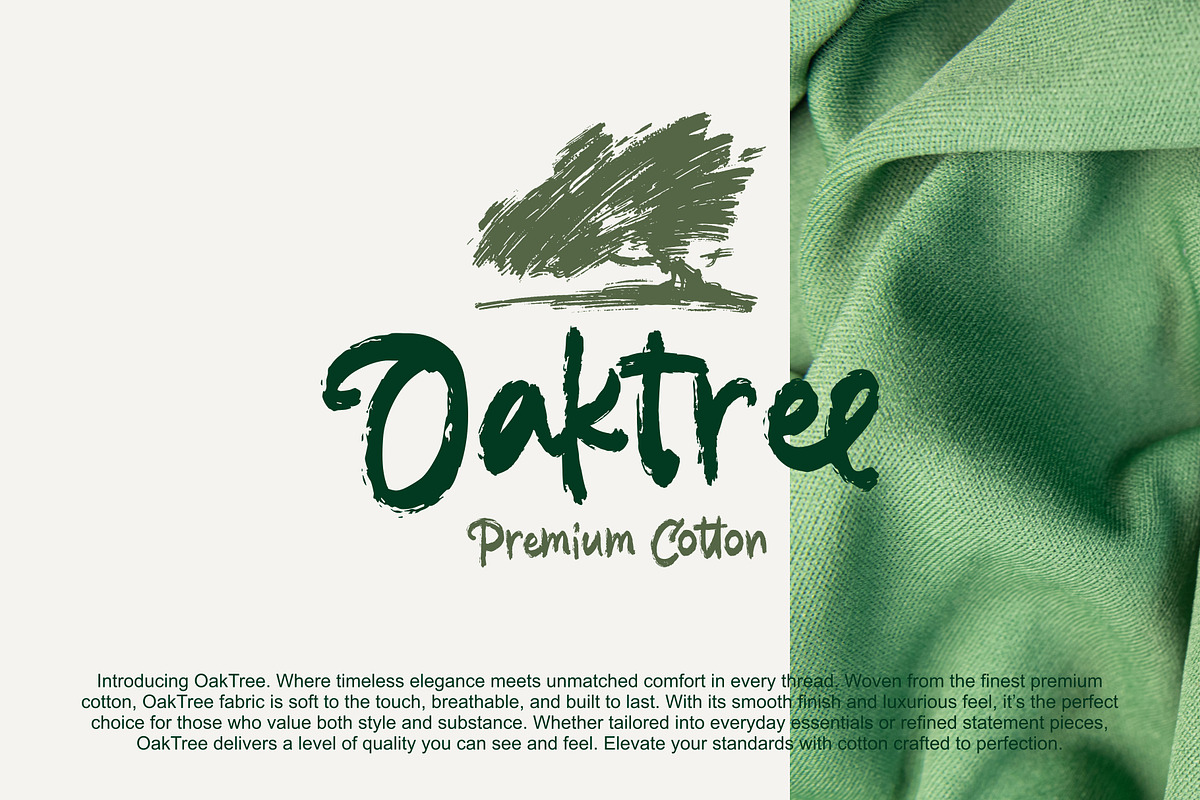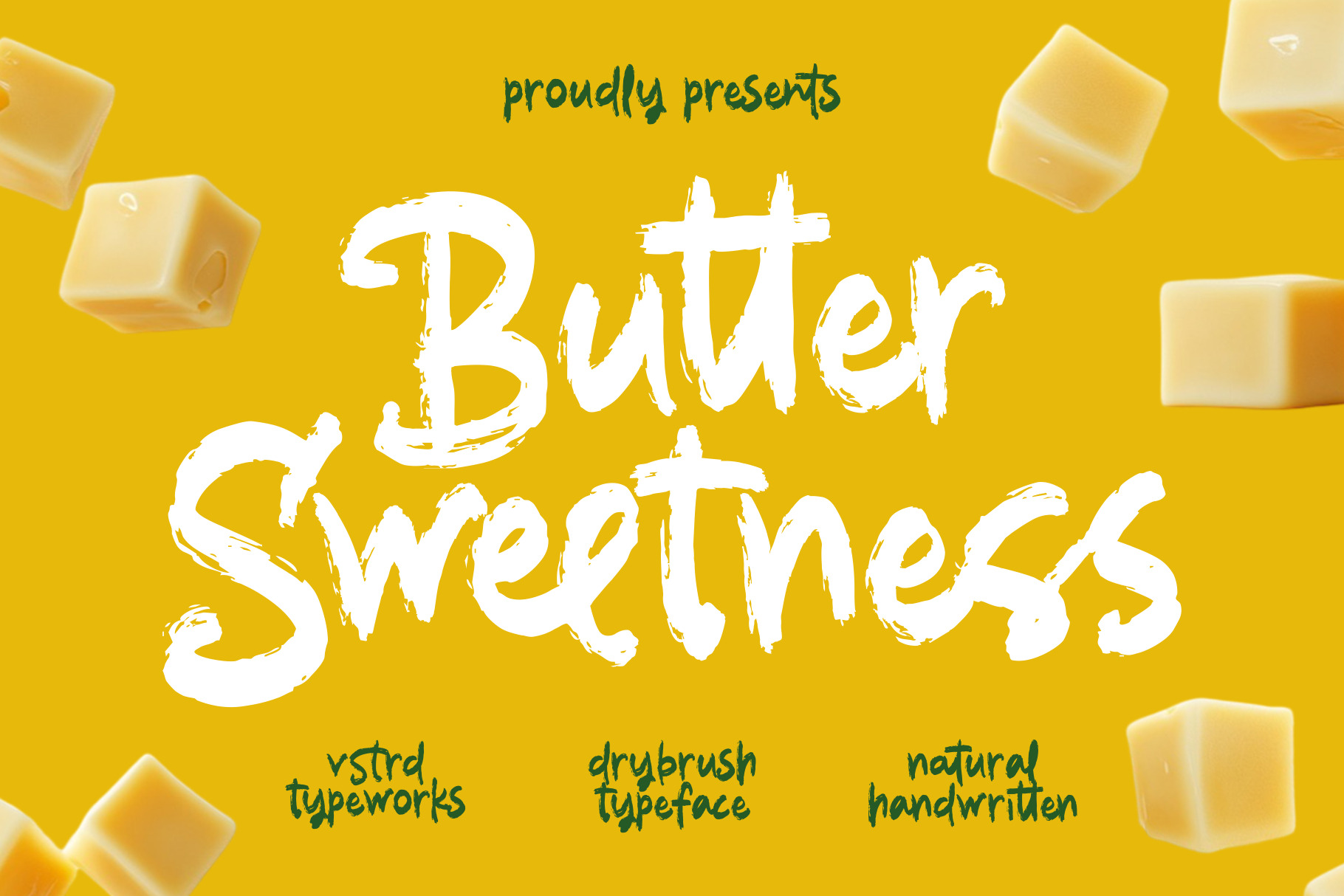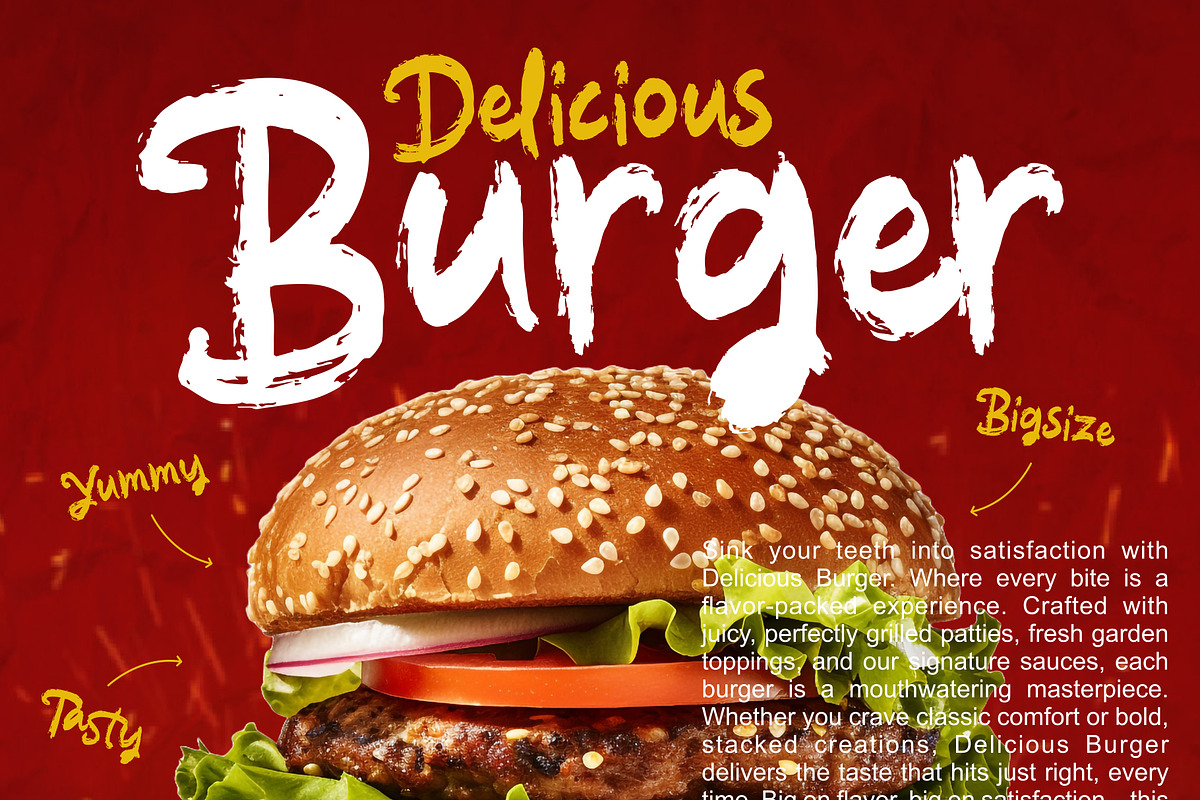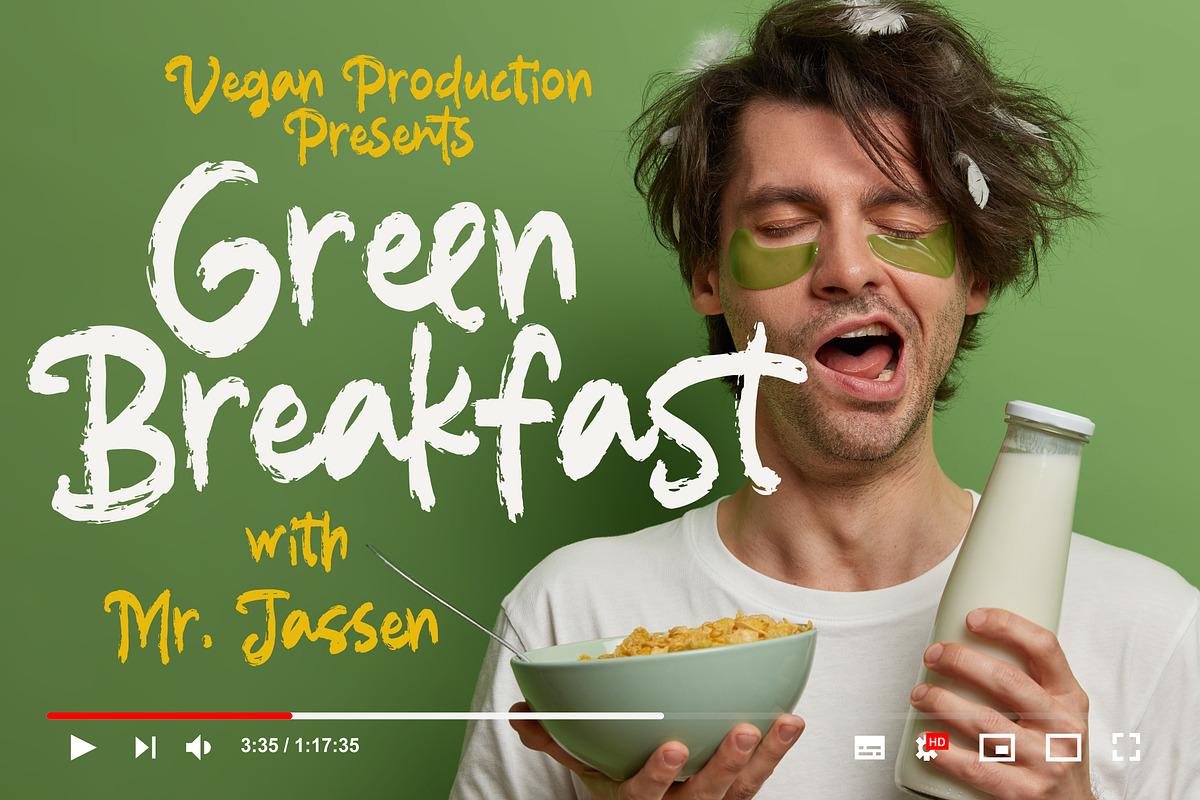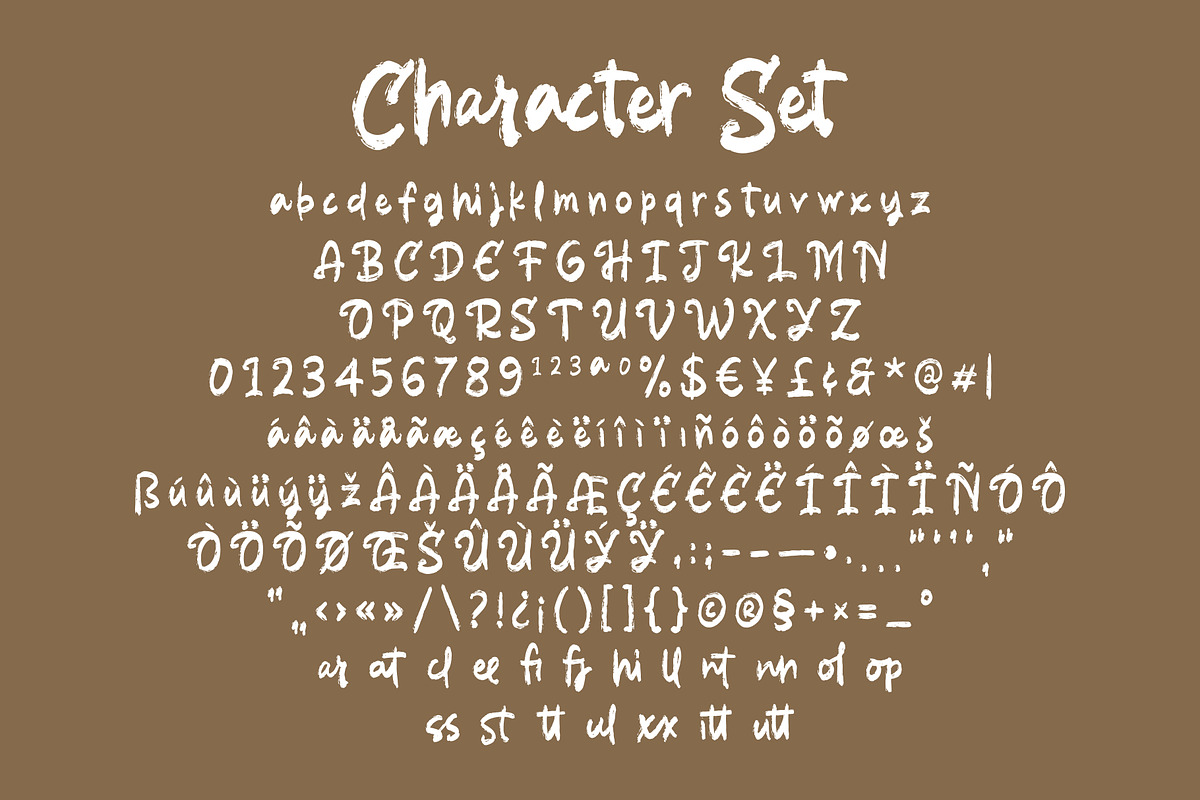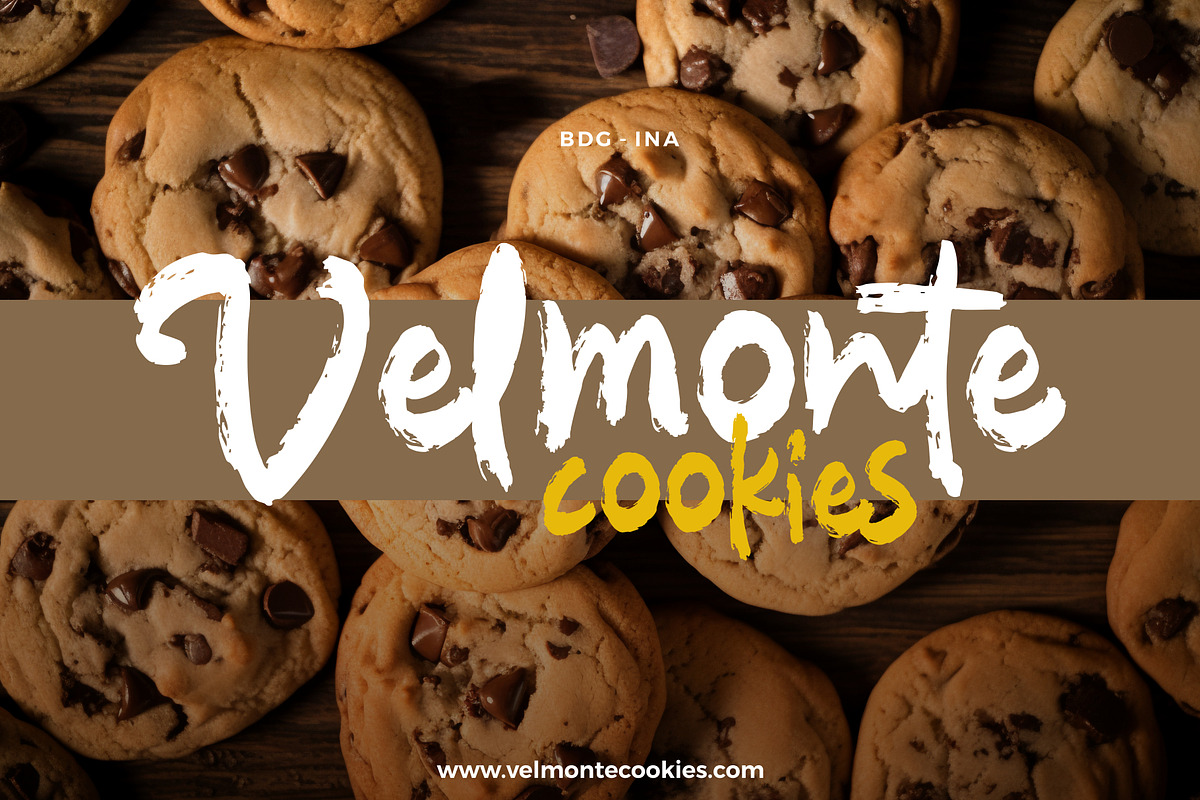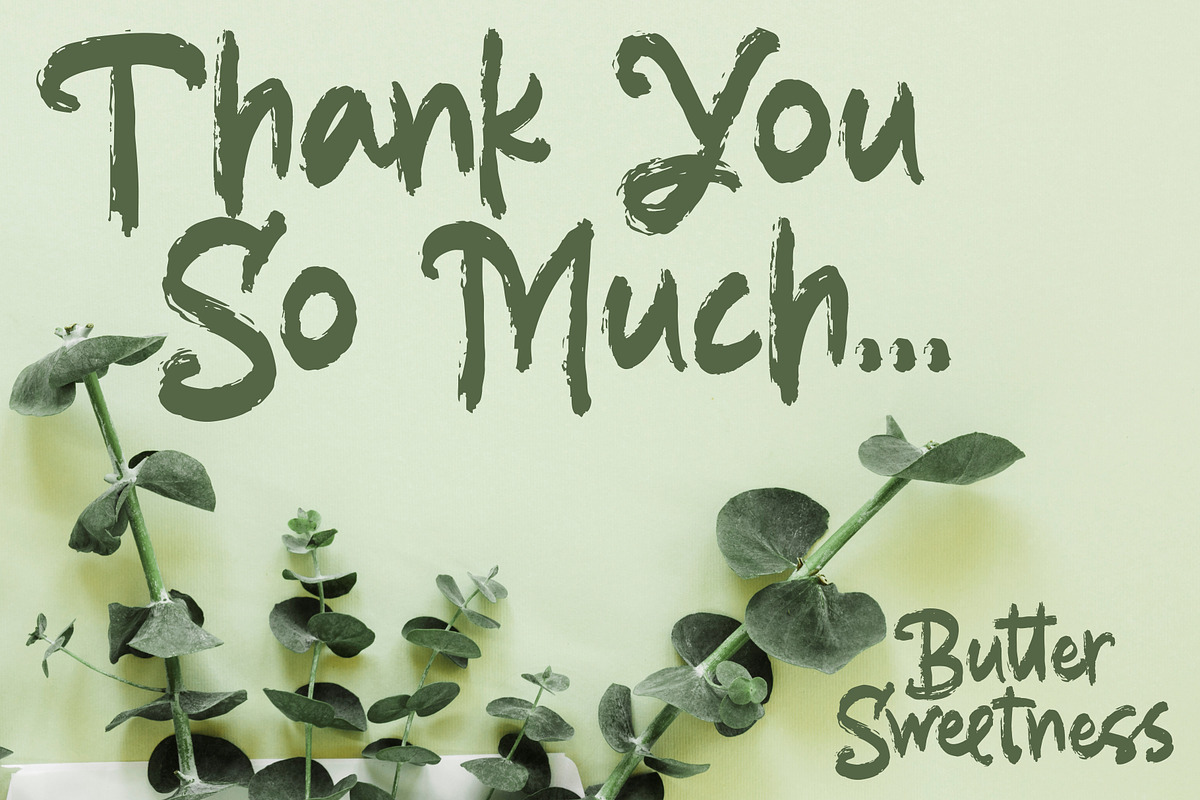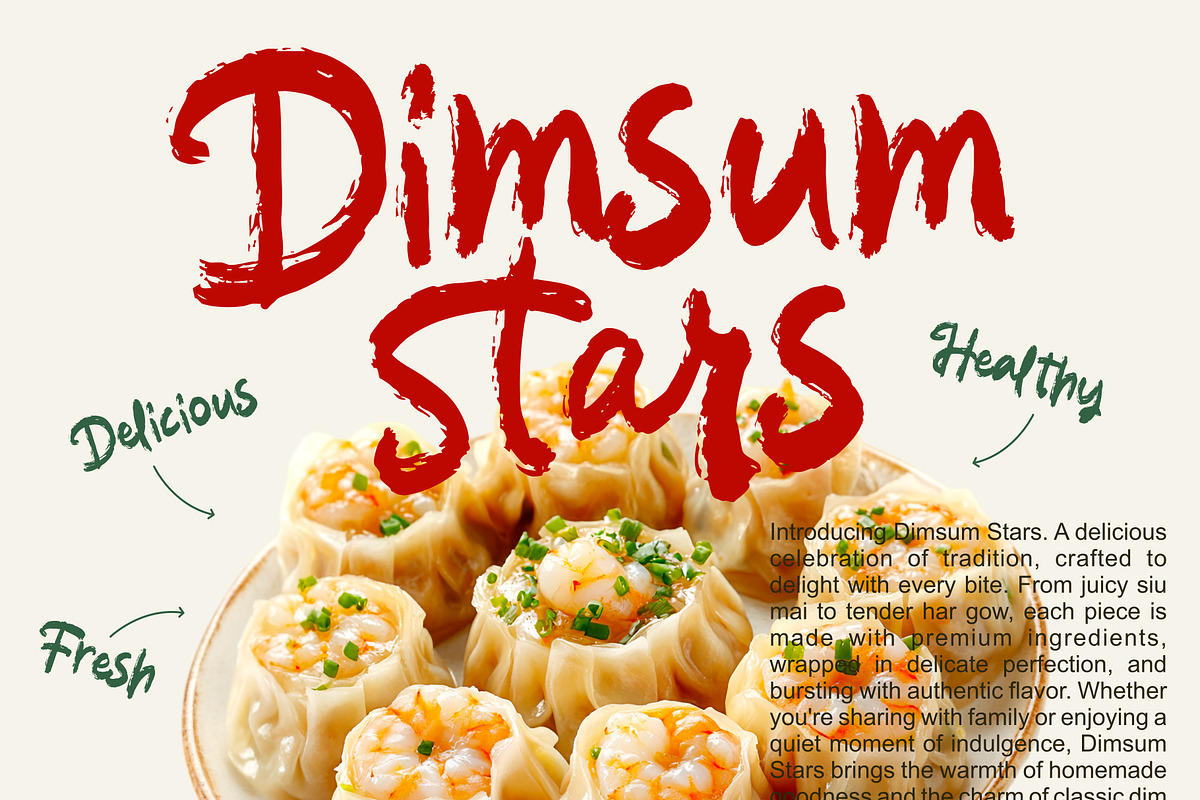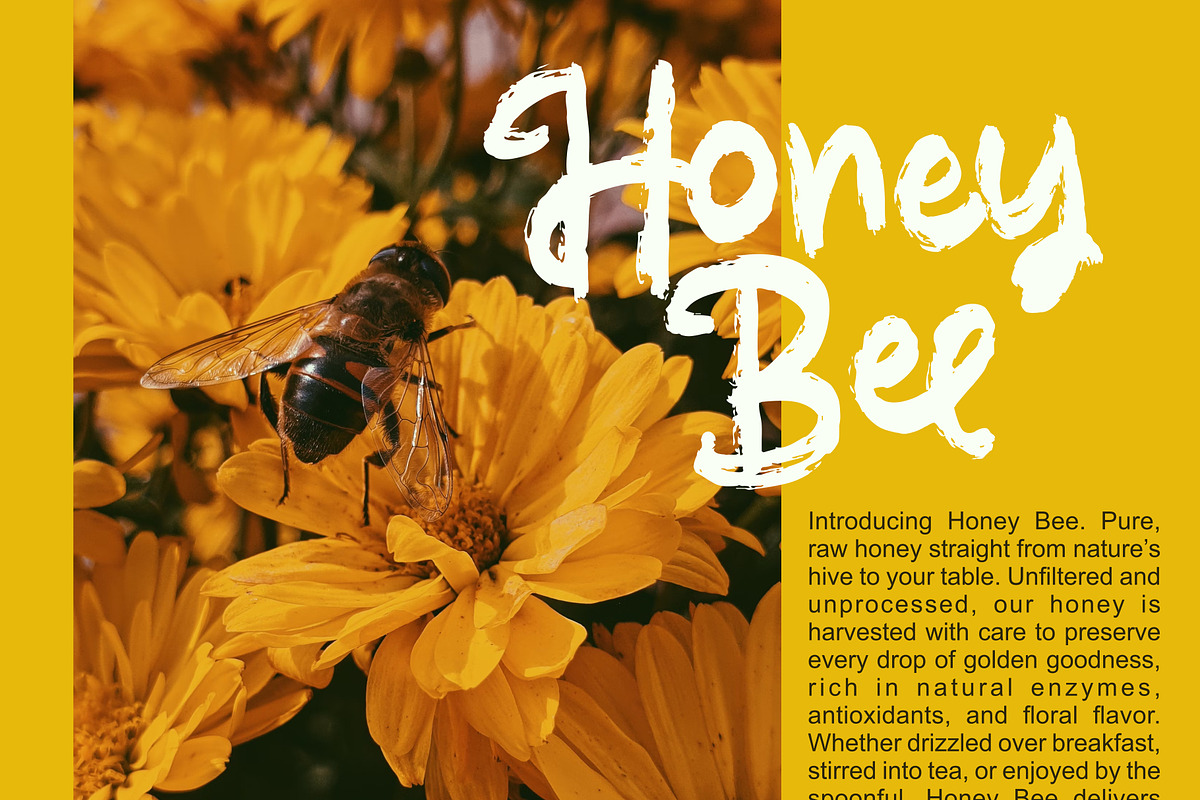
Butter Sweetness - Brush Font
Butter Sweetness – Playful Brush Handwritten Font
Add a splash of fun and flavor to your designs with Butter Sweetness, a charming brush handwritten font made from naturally scanned brush strokes. Its lively and casual feel brings a handcrafted warmth that's perfect for projects that crave personality and a touch of whimsy.
Designed for food & beverage branding, logos, book covers, promotional materials, video titles, quotes, product packaging, and eye-catching text overlays, Butter Sweetness delivers a joyful tone with every letter.
- Playful, handwritten brush texture
- Natural and organic look from real brush strokes
- Perfect for food-themed designs and cozy branding
Bring your designs to life with the delightful charm of Butter Sweetness – where playful strokes meet handcrafted goodness!